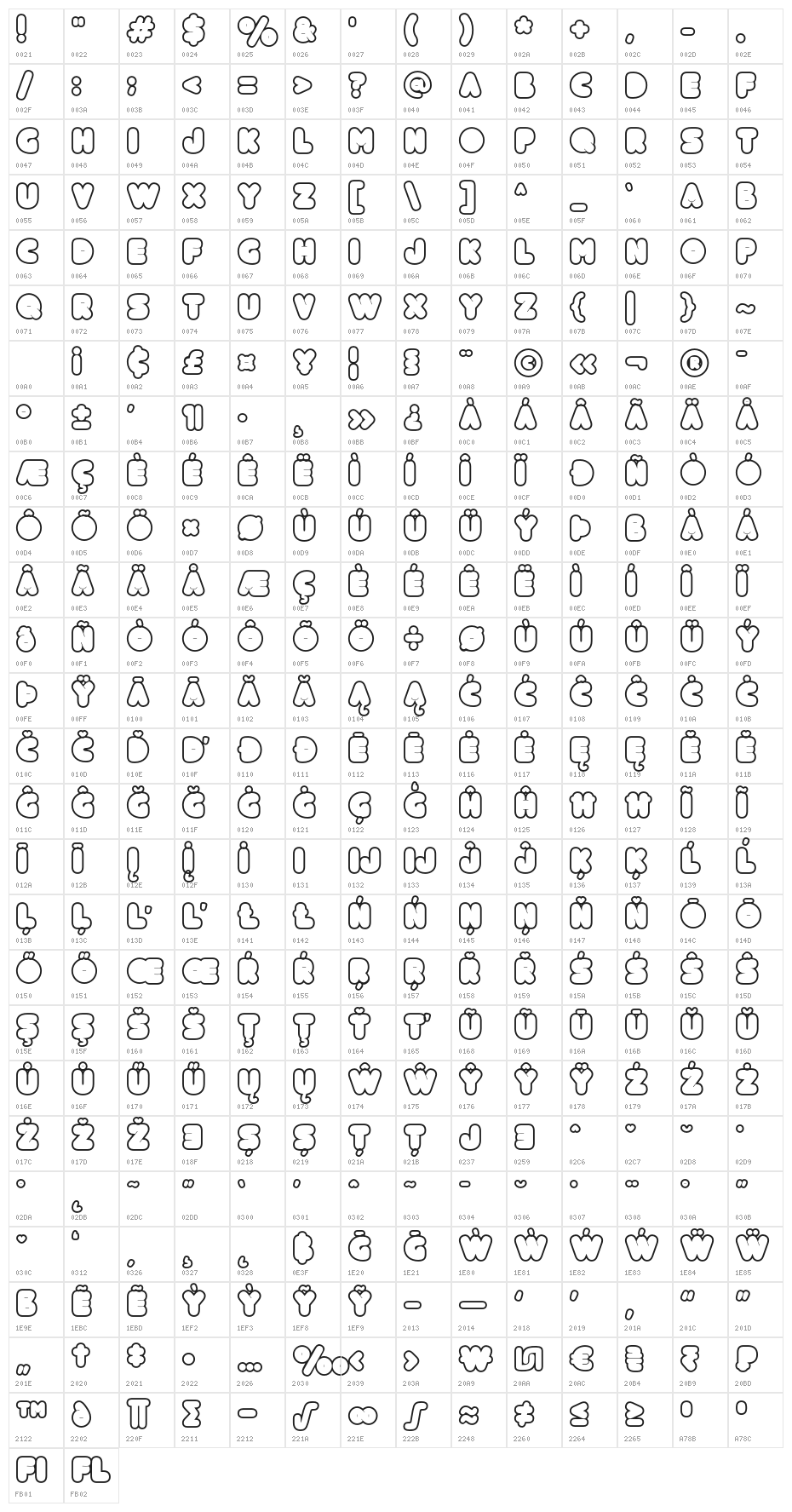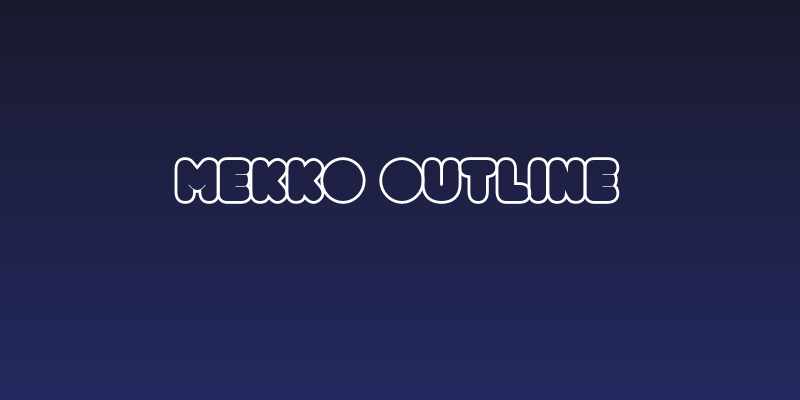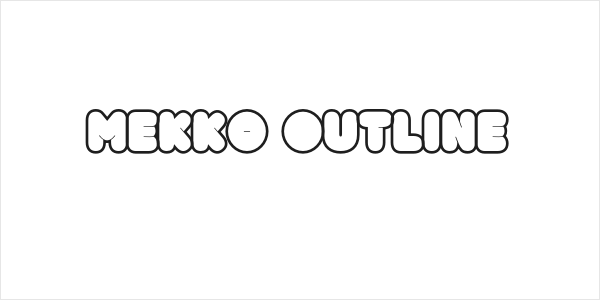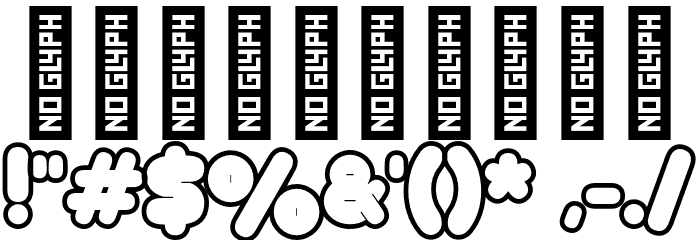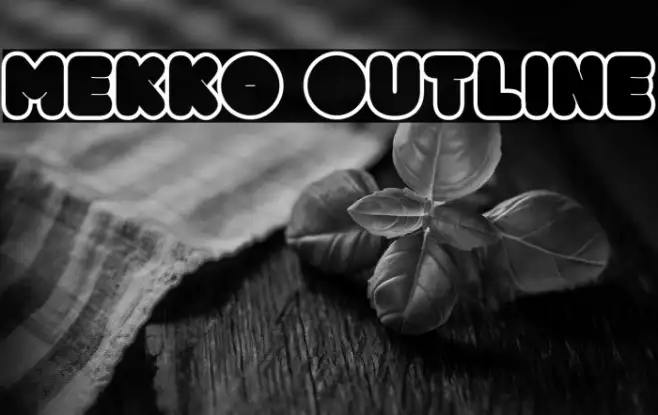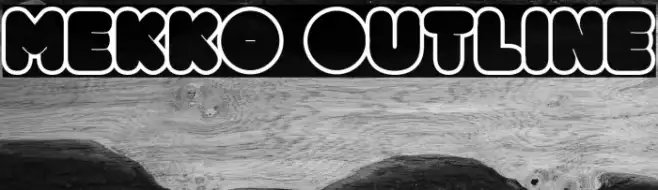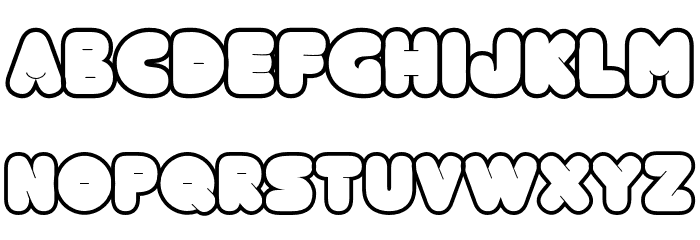
Mekko Outline Font
Mekko Outline Description
This font features a playful and bold outline style with rounded edges, giving it a friendly and approachable appearance. The characters are uniformly thick, creating a cohesive look across both uppercase and lowercase letters. The outline design adds a layer of depth and dimension, making it stand out in any design project. The font maintains a consistent weight throughout, ensuring readability while still offering a unique visual appeal. Its bubbly and fun aesthetic makes it suitable for creative and informal applications.
| Proposed Projects | Ideal for children's books, playful branding, posters, and creative digital content. |